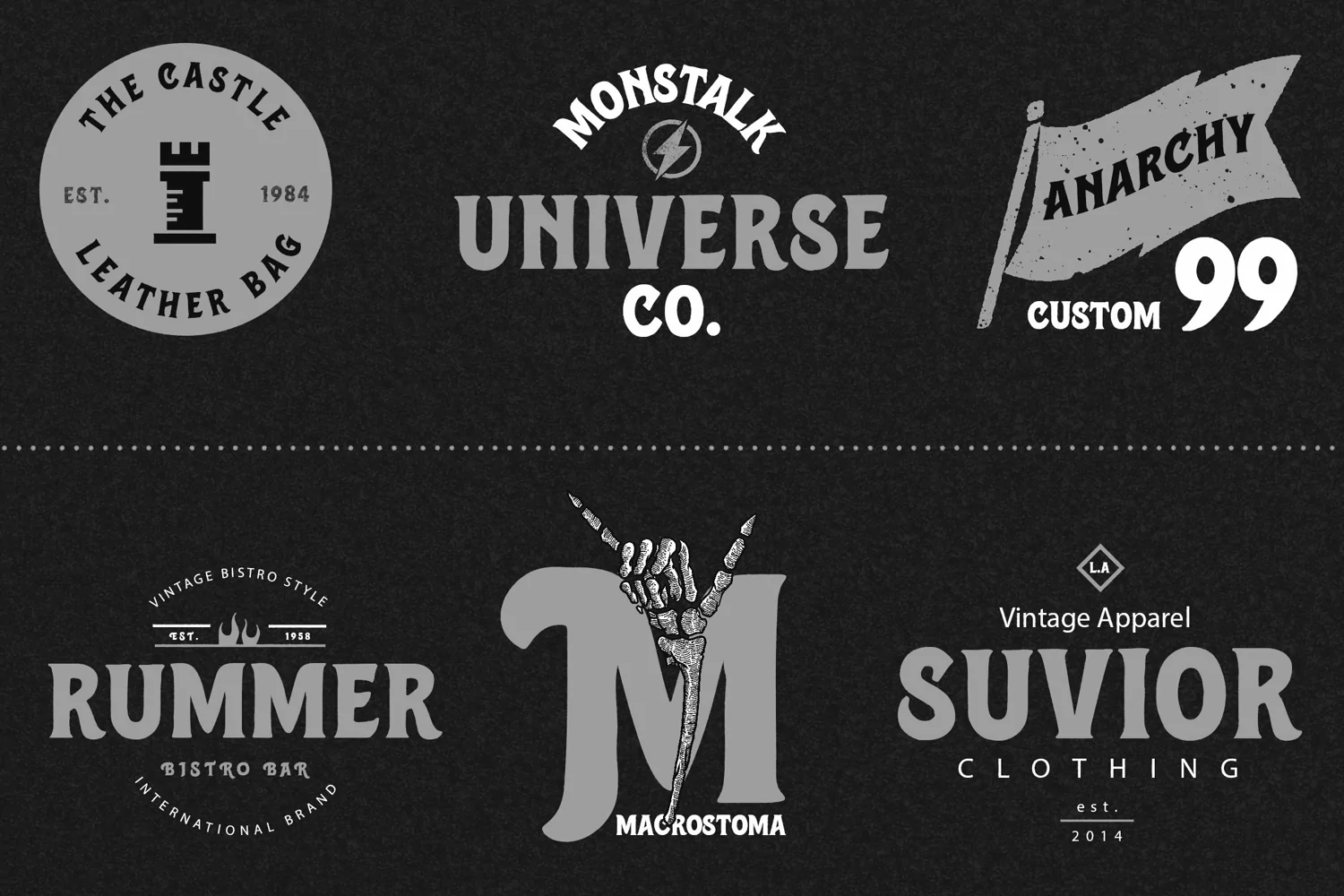
Monstalk Allcaps Vintage Display Serif Font.
Monstalk Serif font is perfect for your up coming projects. Such as logo branding, adventure, jungle / wild, custom motorcycle / car, vintage industrial, editorial design, stationery design, blog design, modern advertising design, card invitation, art quote, home decor, book/cover title, special events, classic automotive and any hand lettering classic / vintage typography design projects.